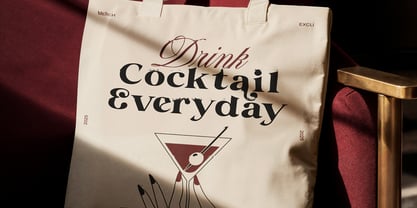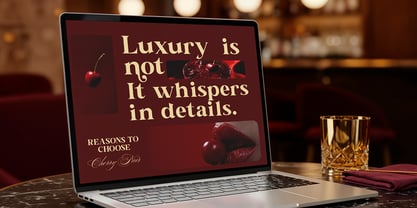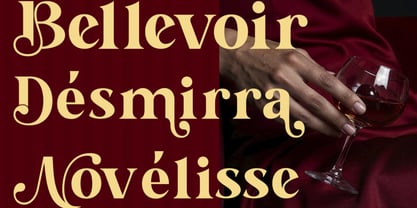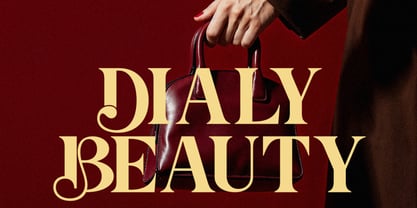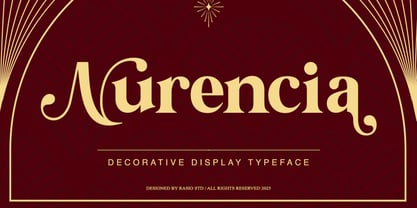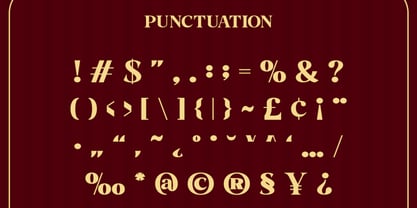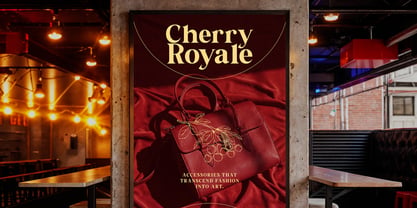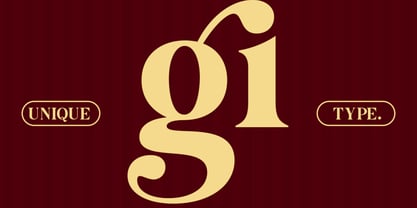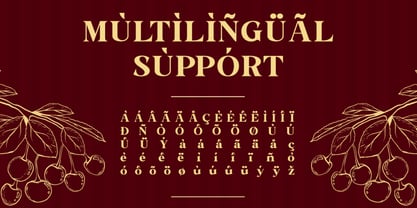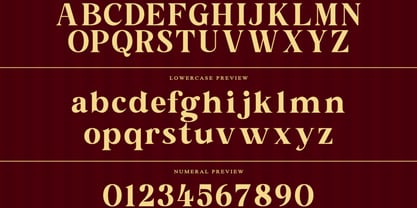
Nurencia
Nurencia is an elegant and decorative serif typeface designed for high-end display purposes. With its refined curves, exaggerated terminals, and stylized swashes, Nurencia evokes a sense of vintage glamour and luxury. Ideal for logos, editorial layouts, fashion branding, packaging, or invitation design, this font adds a classic charm with modern functionality. Nurencia includes a full set of uppercase and lowercase letters, numerals, punctuation, and works beautifully in multilingual applications. Nurencia is perfect for designers and creatives aiming to bring a sense of elegance, tradition, and sophistication to their work. Whether it’s for high-end branding, magazine covers, luxury product packaging, or ornate event invitations, this typeface adds a rich, timeless personality to any design.